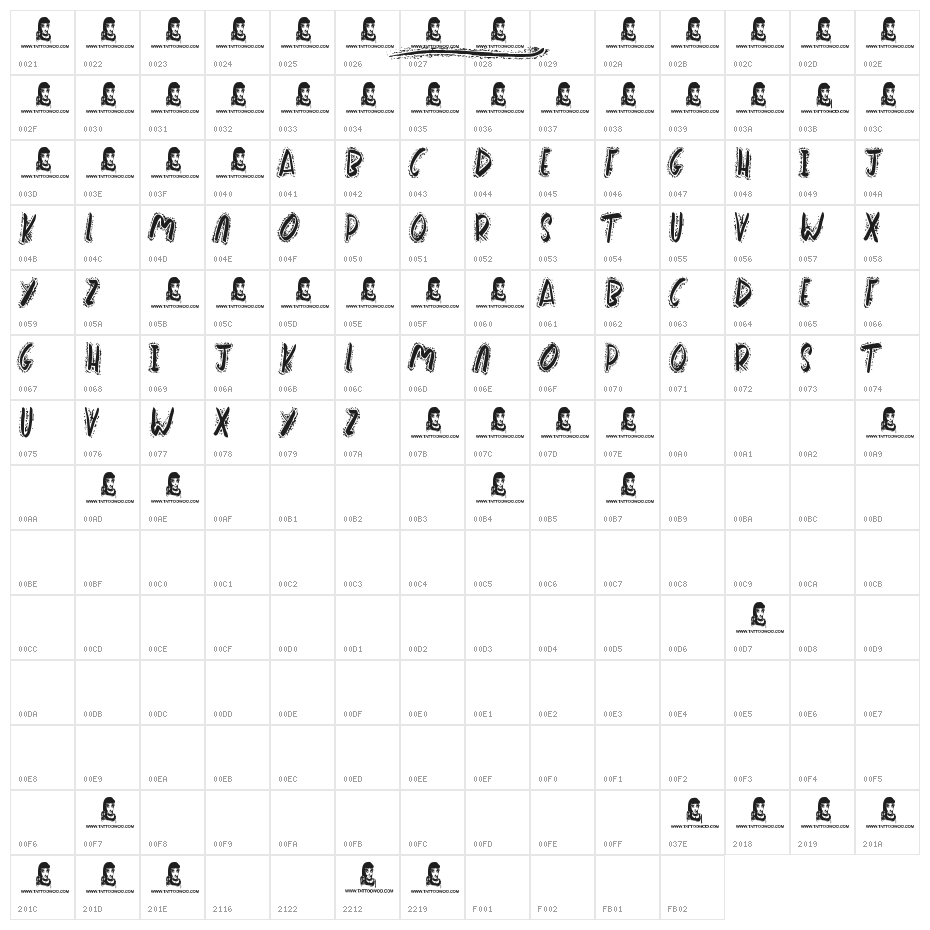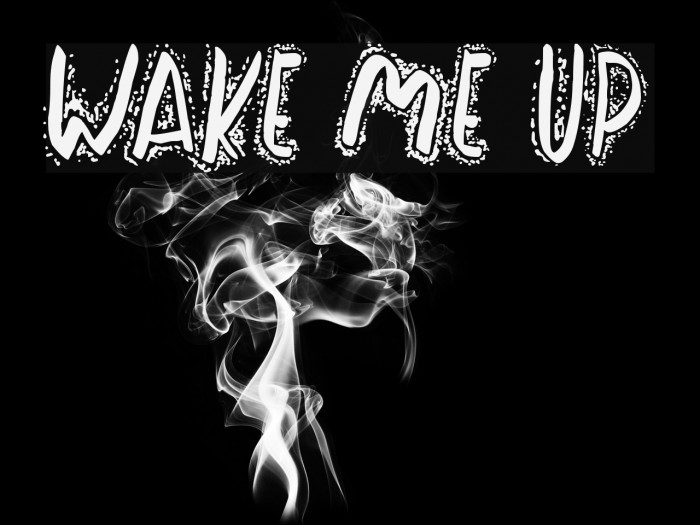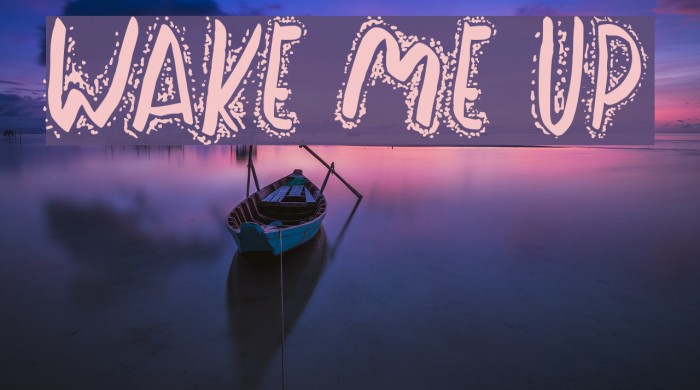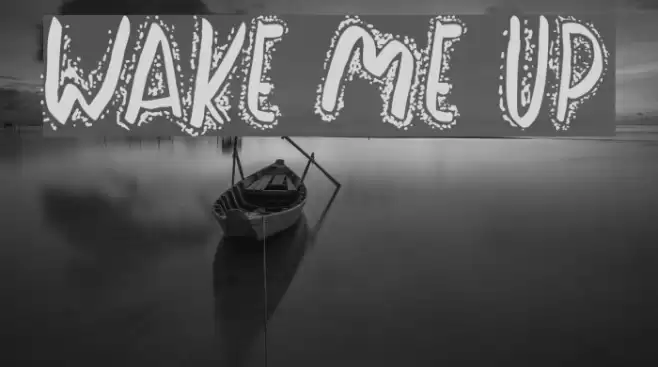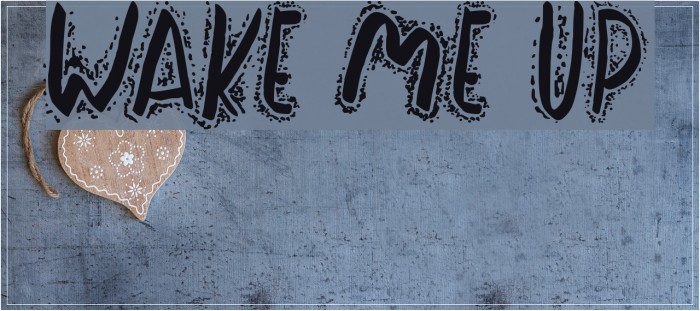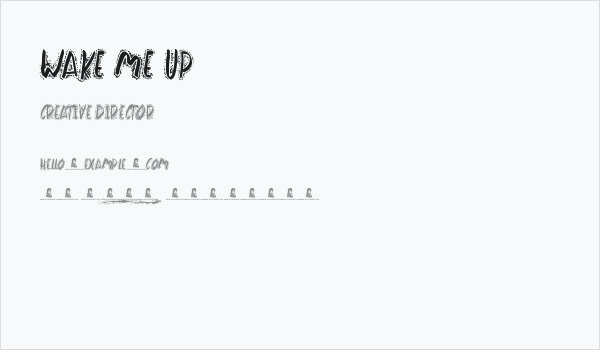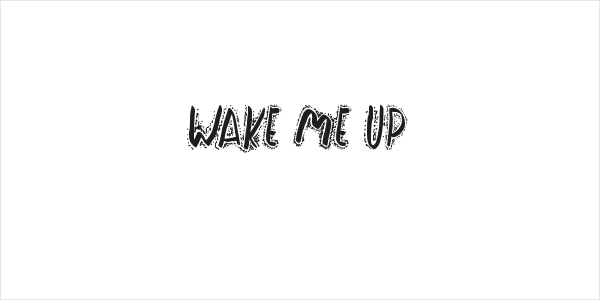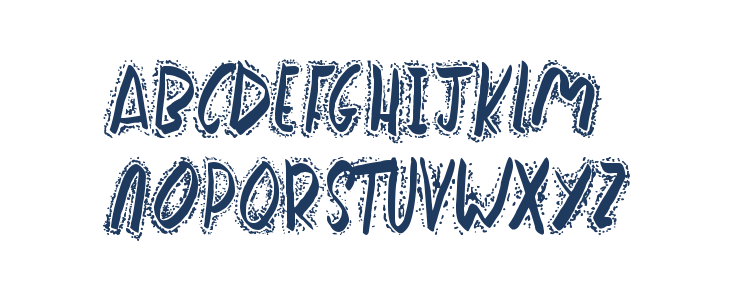
Wake Me Up Font
Wake Me Up Description
This font features a bold and energetic style with a hand-drawn appearance. The letters are uppercase and exhibit a playful, graffiti-like texture with a speckled pattern surrounding each character. The strokes are thick and uneven, giving it a dynamic and informal look. The font's unique style makes it stand out, with each letter having a slightly different shape, adding to its handcrafted feel. The overall design is eye-catching and suitable for creative and artistic projects.
| Proposed Projects | Ideal for posters, album covers, street art designs, and creative branding projects. |